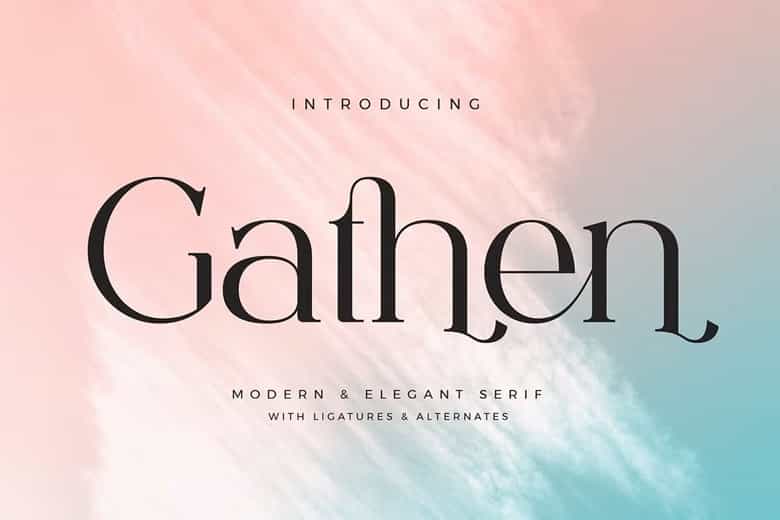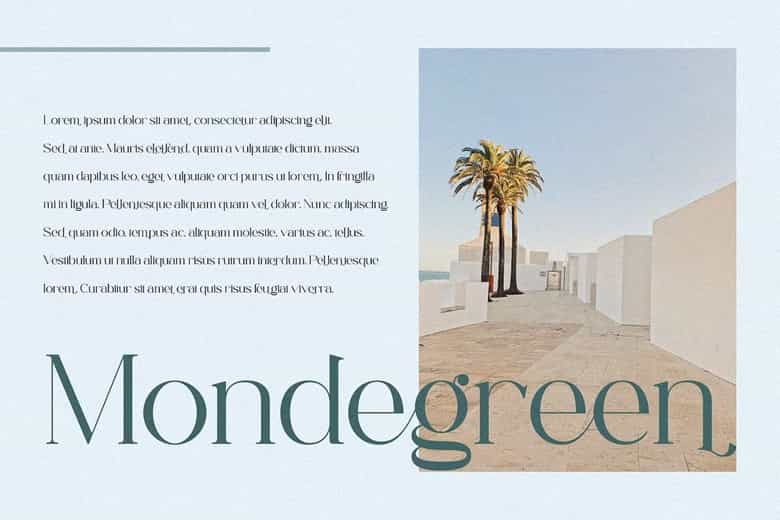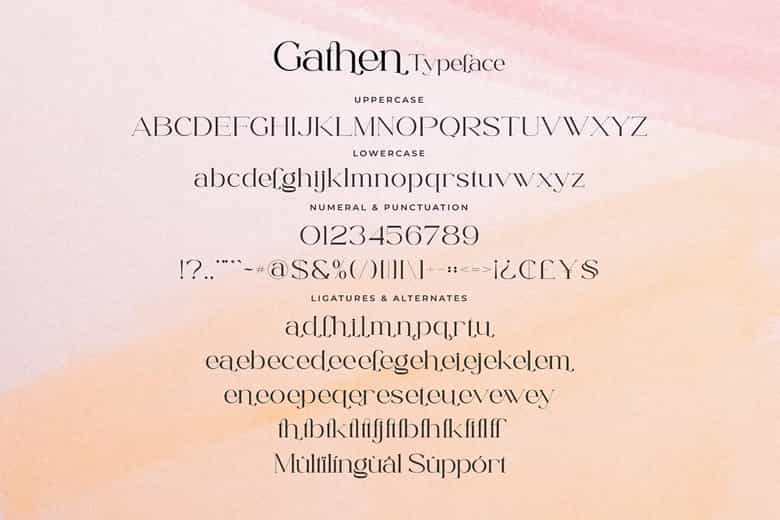
Gathen is a highly clean and intuitive serif font suitable for contemporary design approaches. Its sharp and sleek image makes it appropriate for various purposes, including branding, editorial design. Gathen gives a modern view with some panache and is ideally suited, in terms of typeface, to the purpose of the book and the clarity of the text.